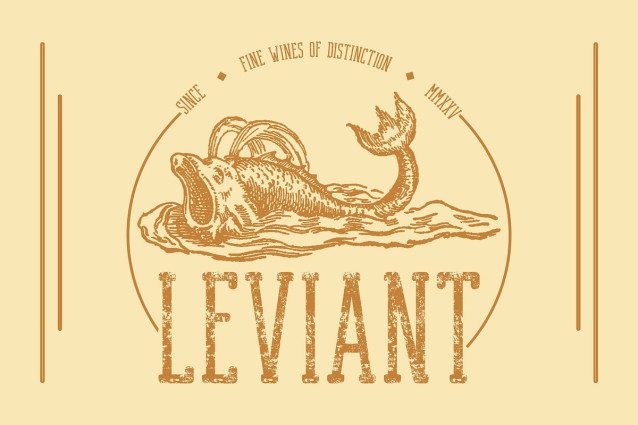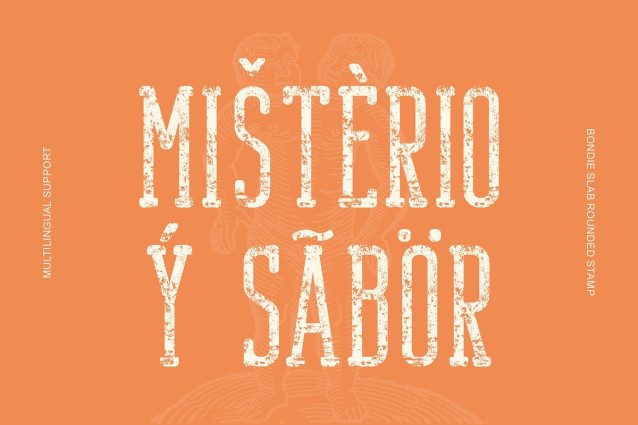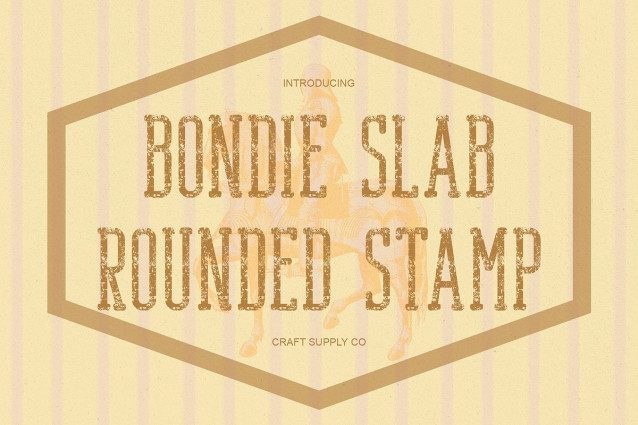
Bondie Slab Rounded Stamp Font
Bondie Slab Rounded Stamp Font with Confident Presence This is a condensed slab serif font built for designs that demand both power and precision. Its tight structure and sturdy slab serifs deliver a strong visual statement, making it ideal for headlines, posters, and impactful branding where space efficiency and boldness are key.
Rounded Details for a Softer Balance The rounded corners add a friendly and approachable tone, softening the firmness of the slab structure. This balance between strength and warmth makes this font versatile perfect for modern layouts that need both readability and personality.
Stamp Texture for Vintage Character The defining feature of this typeface is its stamp effect, which introduces a vintage, handcrafted texture. The subtle imperfections mimic the look of traditional print techniques, giving your text a weathered, authentic appearance that enhances its charm and depth.
Versatile for Bold and Retro Projects From branding and advertising to editorial design and packaging, this font adapts effortlessly. It merges modern slab font confidence with nostalgic print aesthetics, creating a timeless look that’s both professional and expressive.